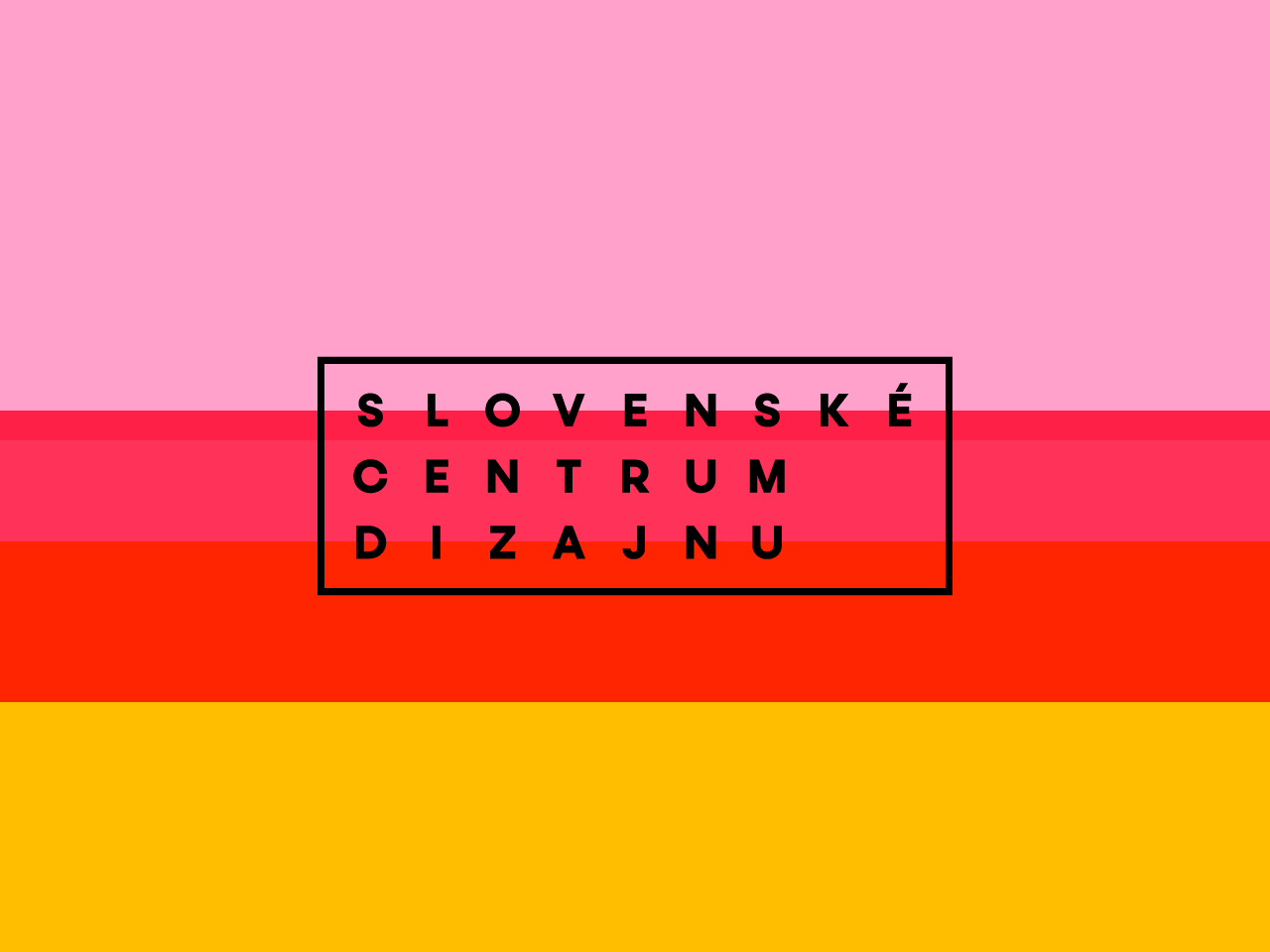
Slovak Design Center
Logo for Slovak Design Center, the leading Slovak organization in the field of design. Among its main activities is to investigate, evaluate and clarify the impact of design in society and, on the basis of scientific research, to systematically collect, protect, expertly process and make available objects of cultural value from the field of design, applied art, architecture, and related disciplines.
The logo is a redesign of the concept developed by designer Emil Drličiak in 2011. The original serif typeface Doko was replaced by the sans-serif typeface Setup Grotesk, the architecture and layout logic of characters contained in the logo were rationalized, simplified rules of usage were developed, and the design principle of the main logo was expanded into a complex system of logos for all workplaces and activities of the Slovak Design Center.